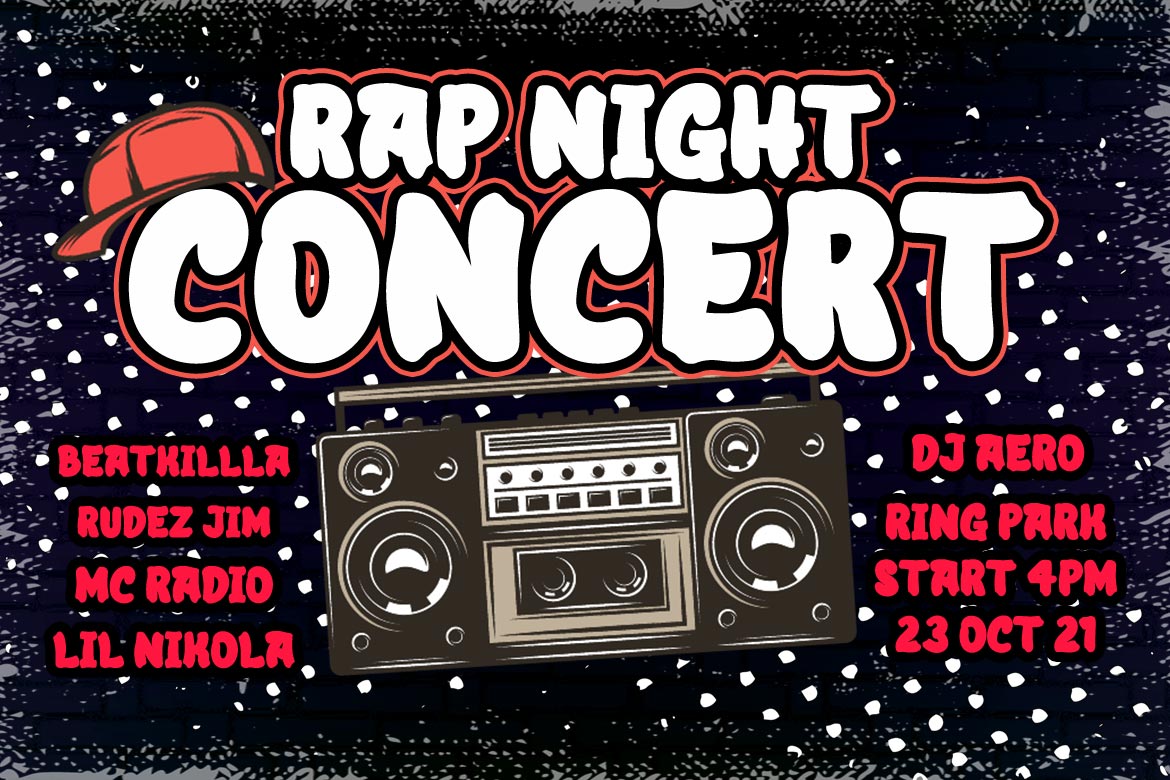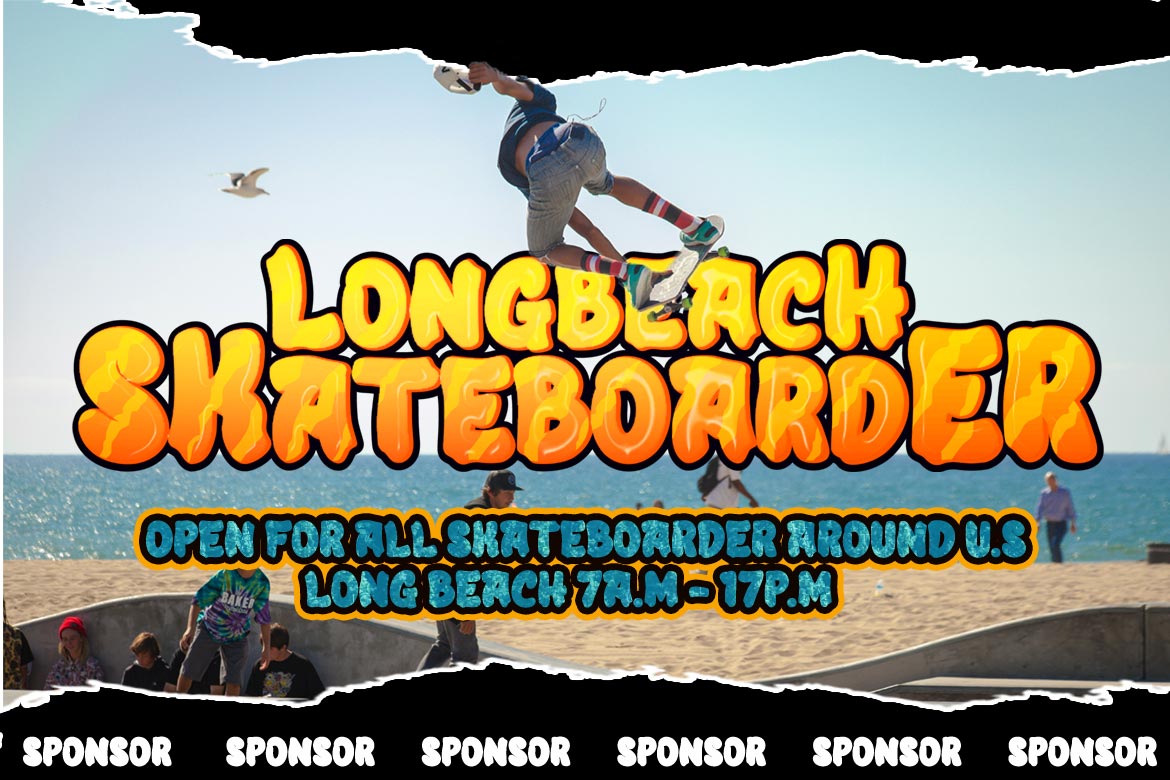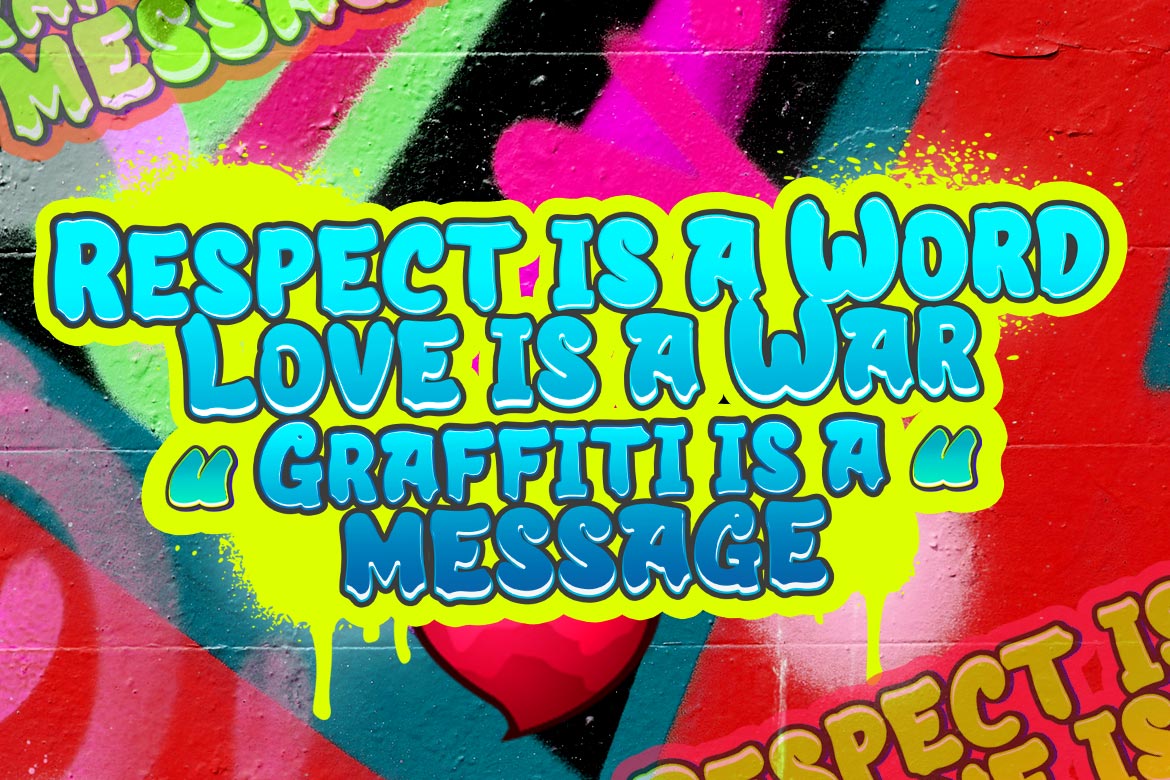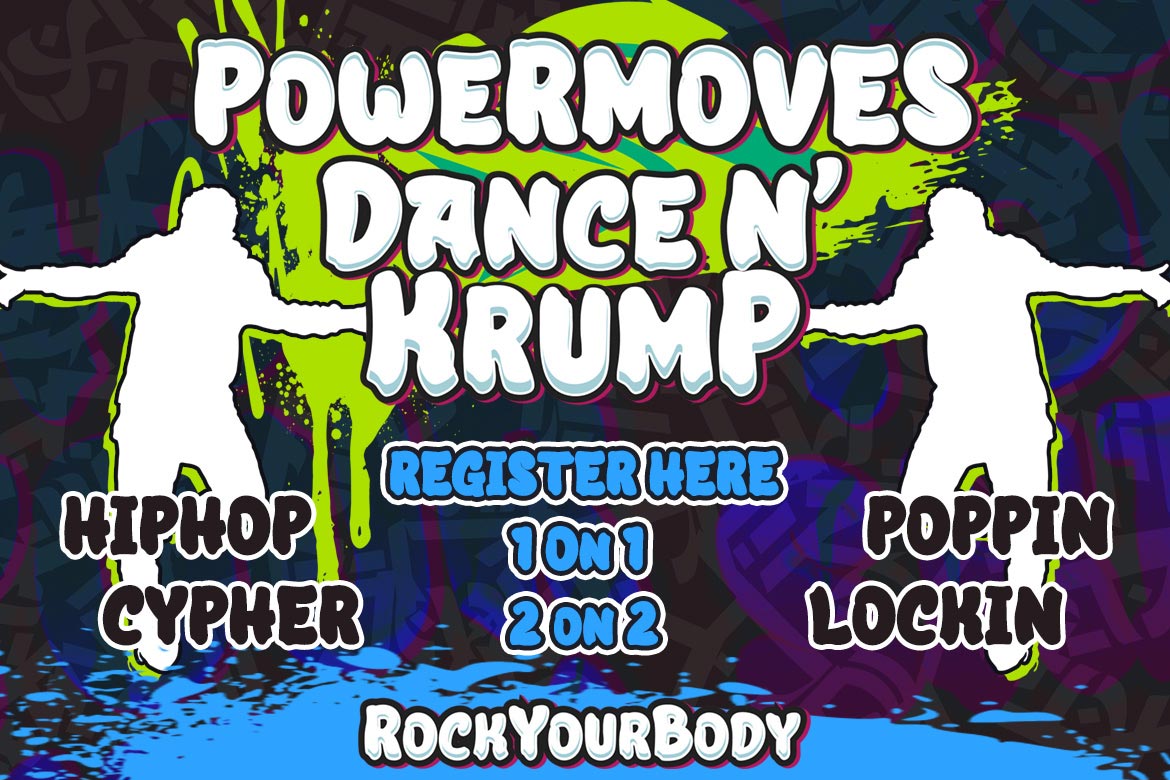
Angombe Font
Angombe Display Font
This is a graffiti font that we created by stressing harmony in each letter to create a decent and unique combination of phrases. When you apply this typeface, your project will look to be more appealing, high-quality, classy, and exquisite.
Assume that everyone who views your project is astonished and enthralled and that your objectives are readily met.
This graffiti font is great for product logos, poster titles, headlines, packaging, film titles, logotypes, gorgeous writing, and trendy graffiti designs, among other things.
Of course, if you utilize this font in your numerous creative projects, they will be perfect and outstanding.
Use this typeface right away for your one-of-a-kind and remarkable projects.